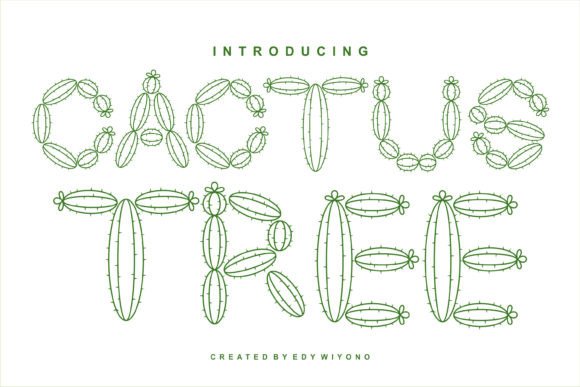
The Prickly yet Charming Cactus Tree Font: A Designer’s Delight
I still remember the time I was working on a project for a local nursery, and I was tasked with creating a whimsical sign that would capture the essence of their brand. I spent hours scouring the internet for the perfect font, but nothing seemed quite right. That was until I stumbled upon the Cactus Tree font. Its unique blend of playfulness and environmental charm instantly won me over, and it became the perfect fit for the project. In this article, I’ll share my love for this decorative typeface and provide a comprehensive guide on how to make the most of it.
An Honest Review of Cactus Tree Font
- ✨ Unique and quirky design that’s perfect for cartoon-themed designs and illustrations
- ✅ Environmental theme suitability, making it ideal for projects related to sustainability and eco-friendliness
- 🌟 Highly legible, even at smaller font sizes
- 🎨 Versatile and can be used for a wide range of creative projects, from posters to social media graphics
While Cactus Tree font is an excellent choice for many projects, there are a few things to keep in mind:
- 🤔 Limited use of uppercase letters, which might make it less suitable for titles or headings that require a strong emphasis
- ⚠️ Some characters, like the @ symbol, might not be as stylized as other fonts, which could be a drawback for certain designs
The Story Behind Cactus Tree Font
Cactus Tree font was designed with the intention of capturing the whimsical, carefree spirit of the desert landscape. The designer, inspired by the unique shapes and forms of cactus plants, sought to create a typeface that would evoke a sense of playfulness and environmental awareness. The result is a font that’s both fun and functional, perfect for a wide range of creative projects.
Q: What type of projects is Cactus Tree font best suited for?
A: Cactus Tree font is ideal for cartoon-themed designs, illustrations, and environmental themes. It’s perfect for projects that require a playful, whimsical touch.
Q: Is Cactus Tree font available in different weights or styles?
A: Currently, Cactus Tree font is available in a single weight. However, the designer may release additional weights or styles in the future, so it’s worth keeping an eye on their website for updates.